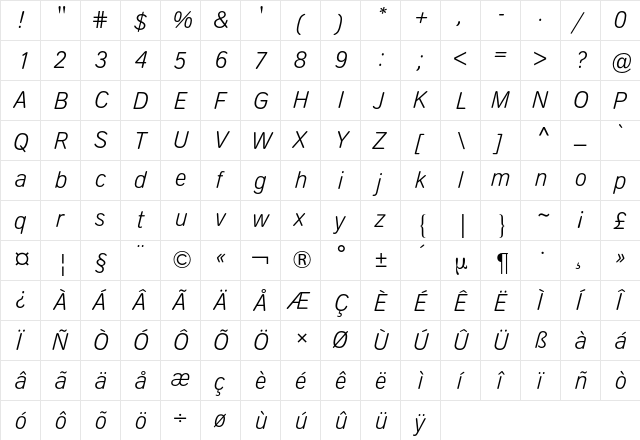
Aral-Type BQ Light Italic Font Preview
Aral-Type BQ Light Italic
Aral-Type BQ Light Italic Font Details
Design Context for Aral-Type BQ Typeface
Aral-Type BQ offers clean, dependable letterforms without strong stylistic allegiance, making it a practical choice for designers who need flexibility. Its italic angle brings a sense of urgency and motion to the letterforms. The delicate stroke weight brings airiness and refinement to layouts.
Pro Tip: Use Aral-Type BQ for emphasis, pull quotes, and subheadings where its slanted energy can add rhythm to the layout.